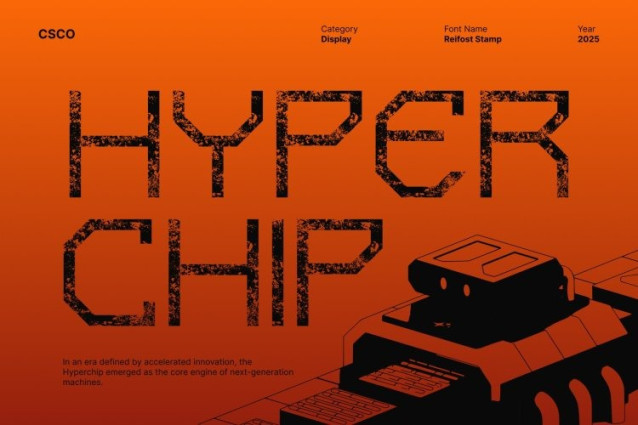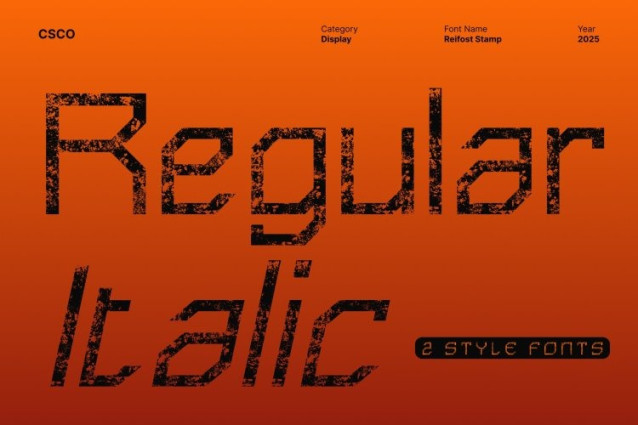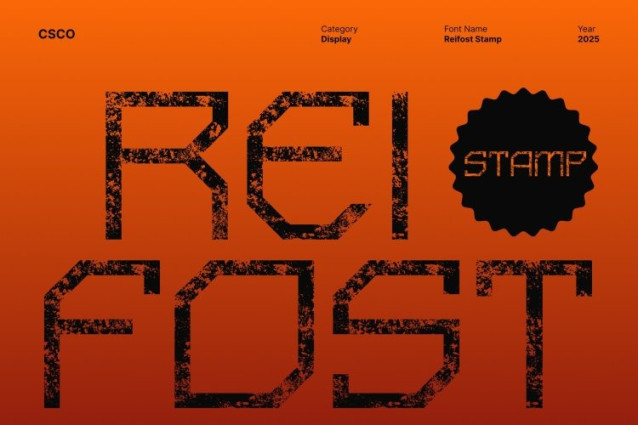
Reifost Stamp Font
Reifost Stamp Font This is a techno modern sans serif font built with sleek geometric precision and a forward-thinking aesthetic. Its clean structure, sharp angles, and contemporary proportions create a distinctly modern look that feels innovative, stylish, and digitally inspired.
Stamp Texture for an Artistic and Expressive Touch
What truly sets apart is its stamped texture adding depth, creative irregularity, and a handcrafted feel to its otherwise clean geometric design. This combination of precision and texture results in a font that feels both modern and artistic. The stamp effect softens the techno rigidity just enough to create visual interest, giving each character a unique, expressive personality that stands out instantly in any layout.
Perfect for Techno Branding, Posters, and Modern Campaigns
This font excels in projects that need a strong, high-impact font with futuristic flair. Its techno look makes it ideal for branding, digital interfaces, gaming visuals, music posters, sci-fi themes, and experimental design concepts. The textured finish adds extra charisma, making headlines more engaging and helping your message grab attention with style and energy.
Versatile for Creative, and High-Impact Displays
Whether you’re designing promotional materials, modern advertisements, packaging, or editorial layouts, adapts beautifully. Its blend of geometric structure and expressive texture allows it to work across a wide range of visual styles from sleek minimalism to edgy, tech-inspired aesthetics.